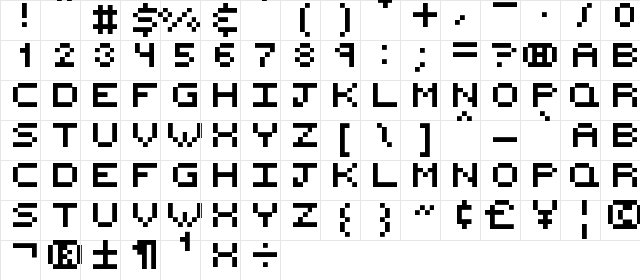
Beef'd Regular Font Preview
Beef'd Regular
Beef'd Regular Font Details
| Designer | LewNV |
Design Context for Beef'd Typeface
Beef'd takes a measured approach to typography — its balanced proportions and neutral character make it a reliable workhorse for both digital and print work.
Pro Tip: Pair Beef'd with a font of contrasting weight or personality to build a more expressive typographic hierarchy.